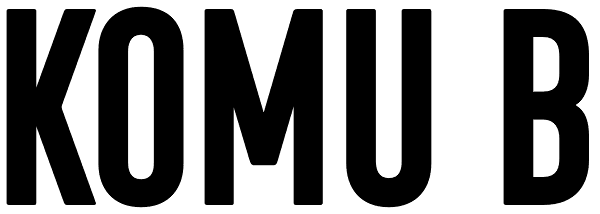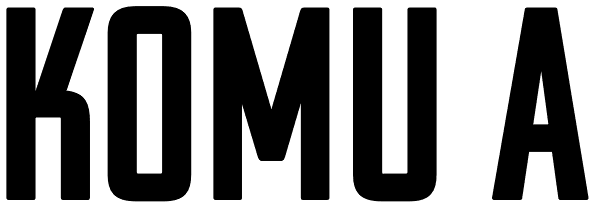
Komu
Komu is the revival of a style of letters frequently used on billboards during the socialist period in the former Czechoslovakia. These were usually uppercase letters made of paper and covered with a layer of aluminum foil. People just had to pick...
Komu B
Komu A